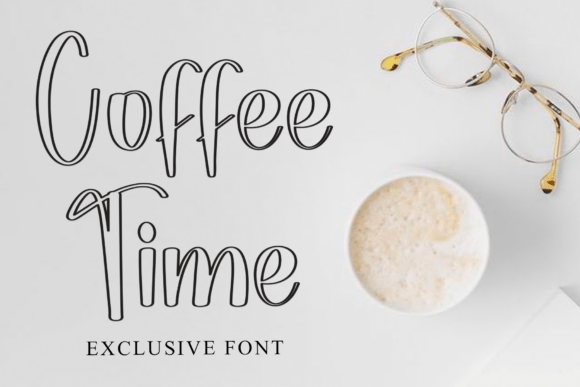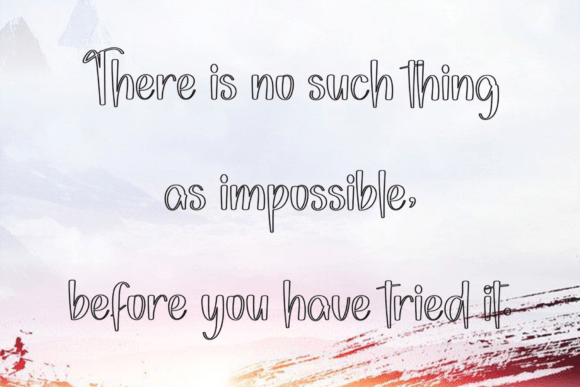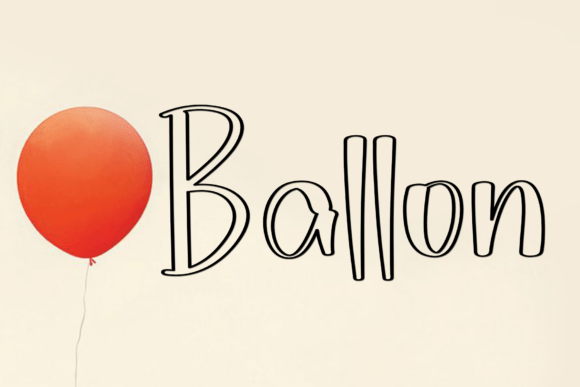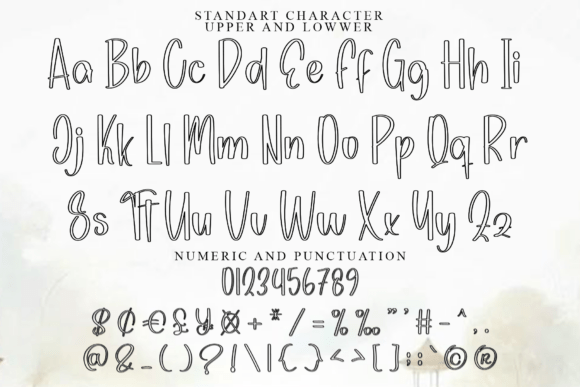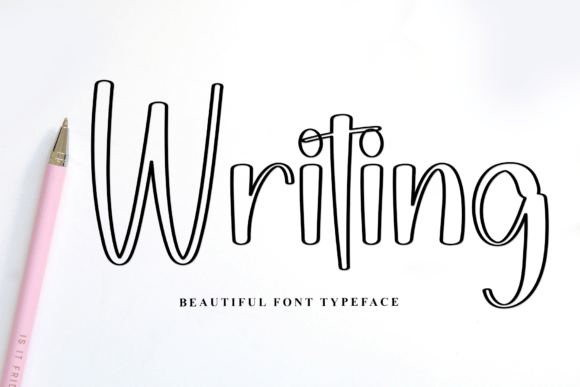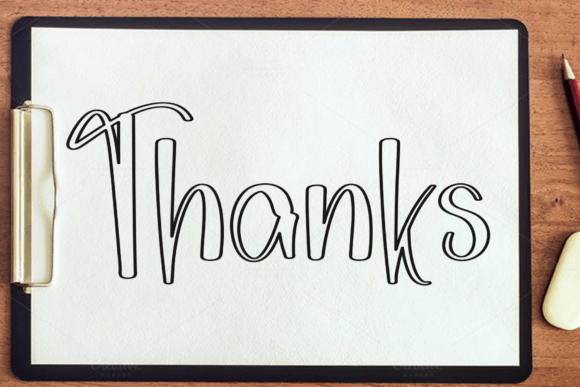
Introduction to Mindstay Wedding Font
As a designer, you’ve likely experienced that moment when inspiration strikes – the perfect idea for a creative project bursts forth, and you can’t wait to bring it to life. For many, this spark of creativity often revolves around love and romance. And what better way to capture that essence than with the elegant and sophisticated Mindstay Wedding Font? This beautiful calligraphy font is the perfect addition to any wedding stationery, romantic quote, or feminine logo design.
With its high-quality, intricately designed letterforms, the Mindstay Wedding Font adds a touch of sophistication and charm to any project. Its transparent background and subtle curls and loops make it an ideal design resource for designers looking to create something truly special. And the best part? It’s available for free download, making it an accessible and valuable resource for creative minds everywhere.
Key Features of Mindstay Wedding Font
- High-quality font designed specifically for wedding invitations and other creative projects, making it a valuable design resource.
- Features a transparent background, allowing for seamless integration with various design elements and backgrounds.
- Available in a single size, making it easy to use in various creative projects, from wedding invitations to signage.
- Designed with a resolution of 300 DPI, ensuring crisp and clear text, even when enlarged.
- Unique, elegant design that adds a touch of sophistication to any wedding-related project, making it a standout design resource.
Honest Review: Mindstay Wedding Font
I recently had the chance to work with the Mindstay Wedding Font, and I must say it’s a great addition to any designer’s toolkit. As a creative project, this font is perfect for wedding invitations, save-the-dates, and other high-end design pieces.
- ✨ High-quality design that looks elegant and sophisticated.
- ✨ The transparent background makes it easy to use with any background image or color.
- ⚠️ The font may not be suitable for all types of creative projects, especially those that require bold or edgy typography.
- ⚠️ Some users may find the font a bit too ornate, which can be overwhelming in certain design contexts.
Overall, I’m impressed with the Mindstay Wedding Font. It’s a great design resource that can add a touch of elegance to any project. While it may not be suitable for every project, it’s definitely worth adding to your collection of high-quality fonts.
Mindstay Wedding Font is ideal for wedding-related projects, such as invitations, save-the-dates, and wedding programs. It’s also great for creating wedding-themed social media graphics and promotional materials. With its transparent background and elegant design, this font is a design resource that’s sure to impress.
To get the most out of Mindstay Wedding Font, experiment with different sizes and styles. You can also pair it with other fonts to create a unique and creative look. Don’t be afraid to use it in a variety of projects, from wedding invitations to social media graphics. With its high-quality design and transparent background, this font is a versatile design resource that’s sure to elevate your creative project.
Q: Does the Mindstay Wedding Font have a transparent background?
Yes, the Mindstay Wedding Font features a transparent background, making it ideal for creative projects that require a clean and minimalist aesthetic.